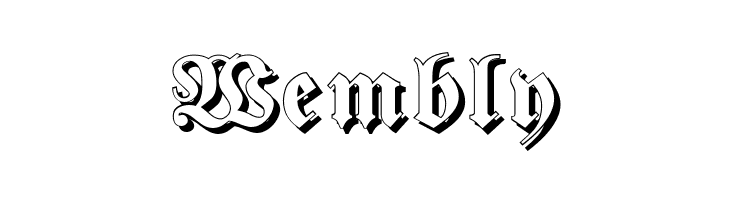
Bazilikin Heavy Font
- Font: Bazilikin Heavy
- No. of Characters:: 91
A bold, shadowed blackletter font with intricate details and a gothic aesthetic.